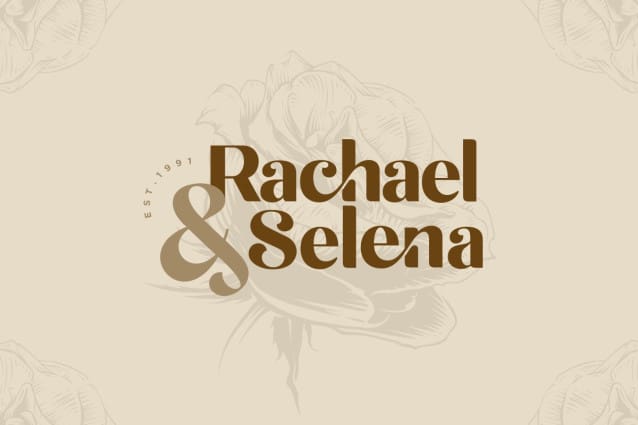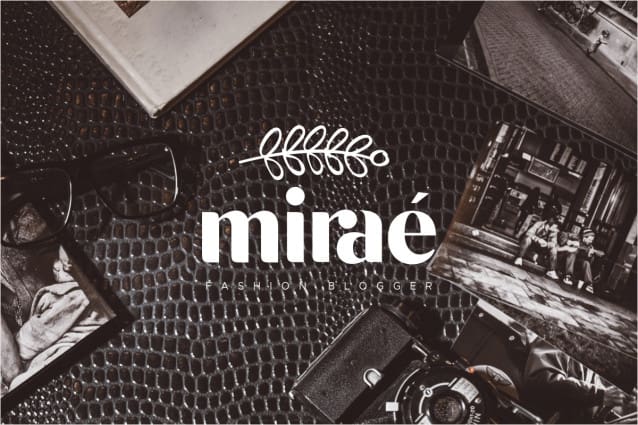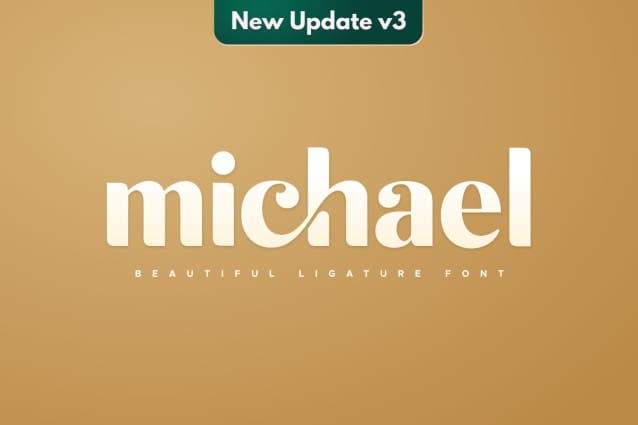
Michael Font
Michael Font is an Unique & Beautiful Font with modern and unique look. It is perfect for branding, wedding invites and cards, and maybe for some project. This is perfect for BRANDING and LOGO DESIGN. You will get classy, elegant, and certainly unique logos with this font.